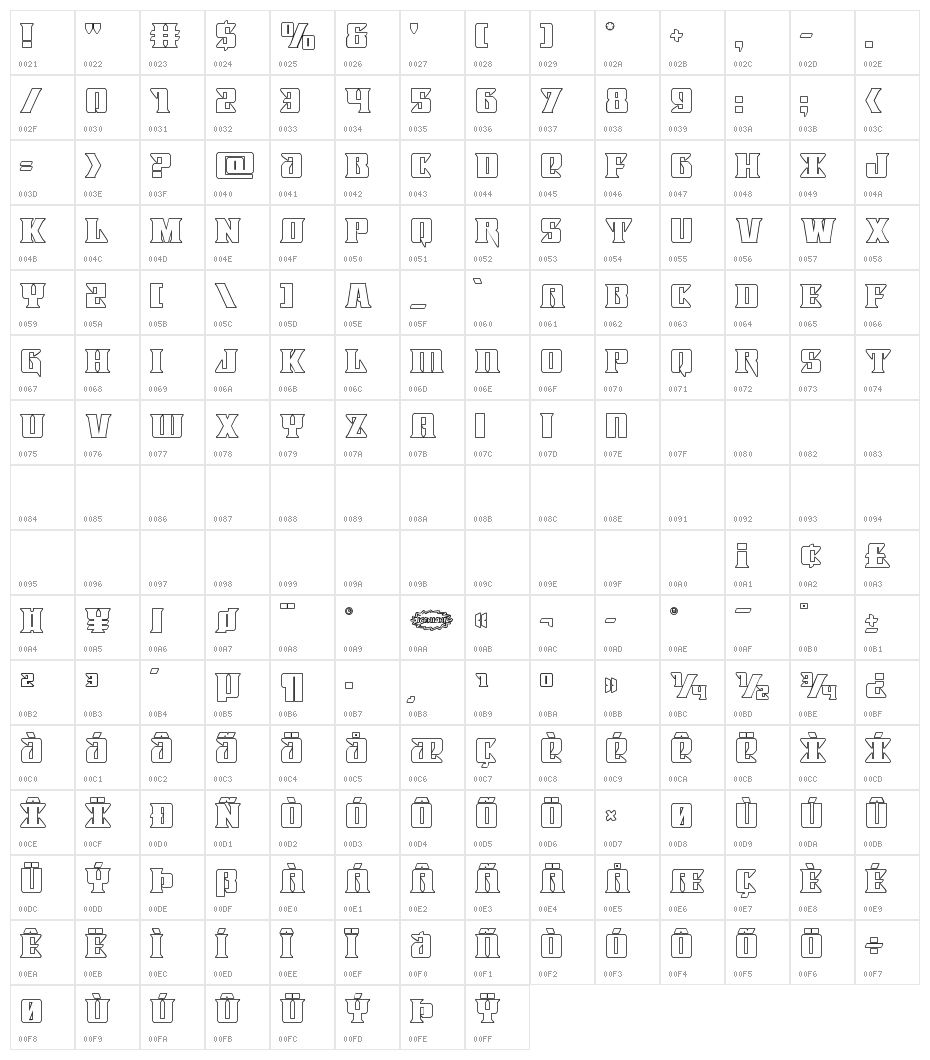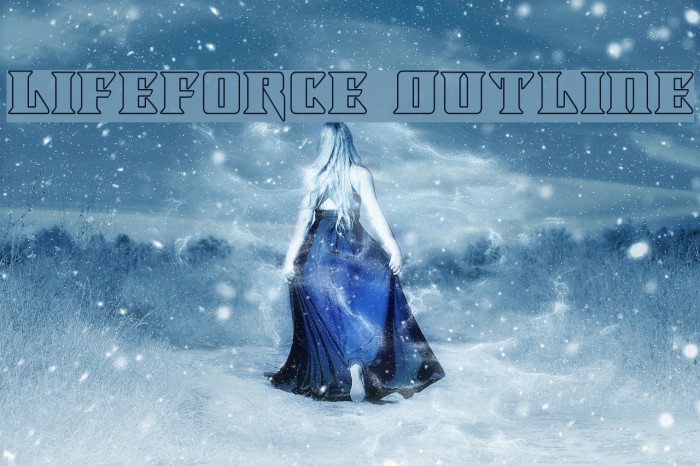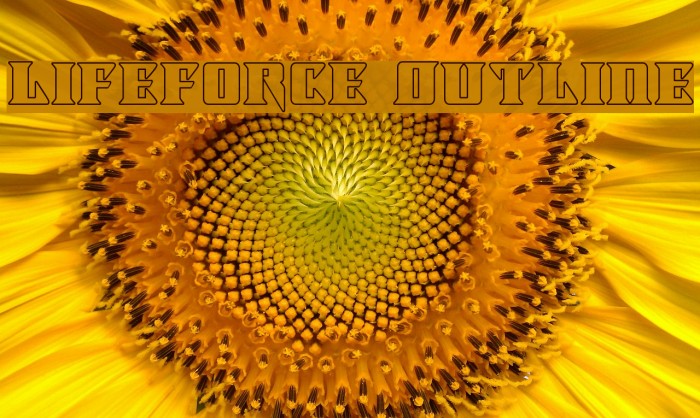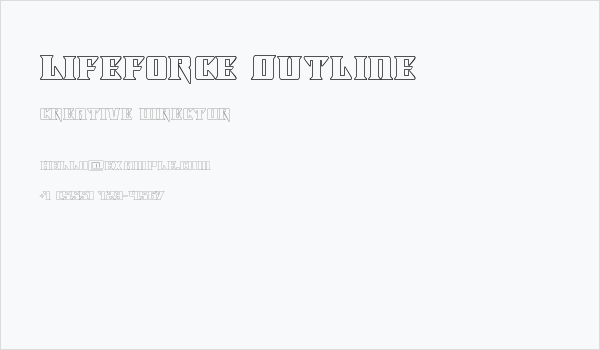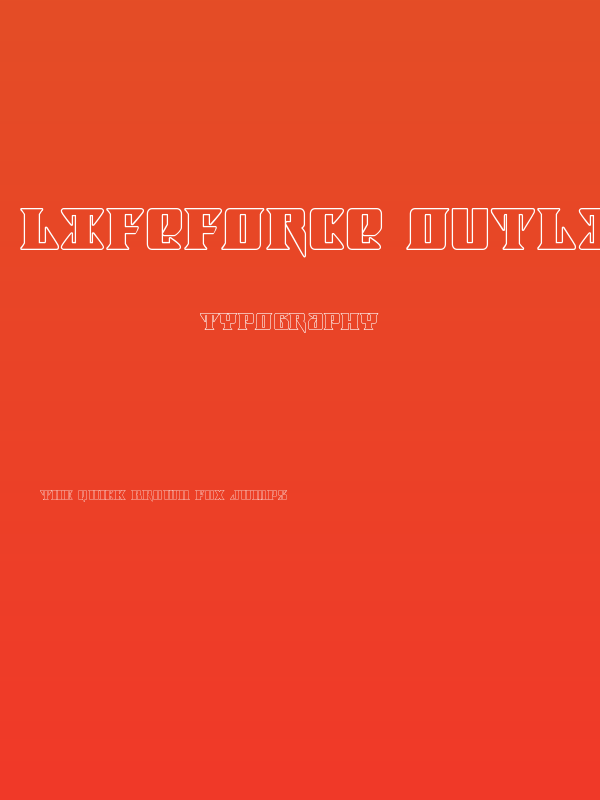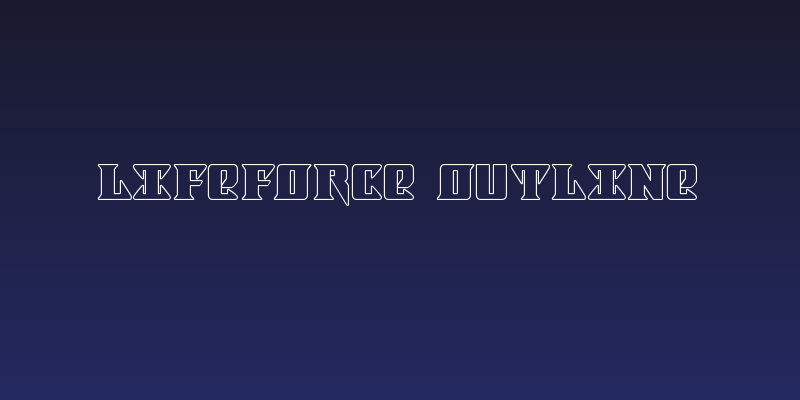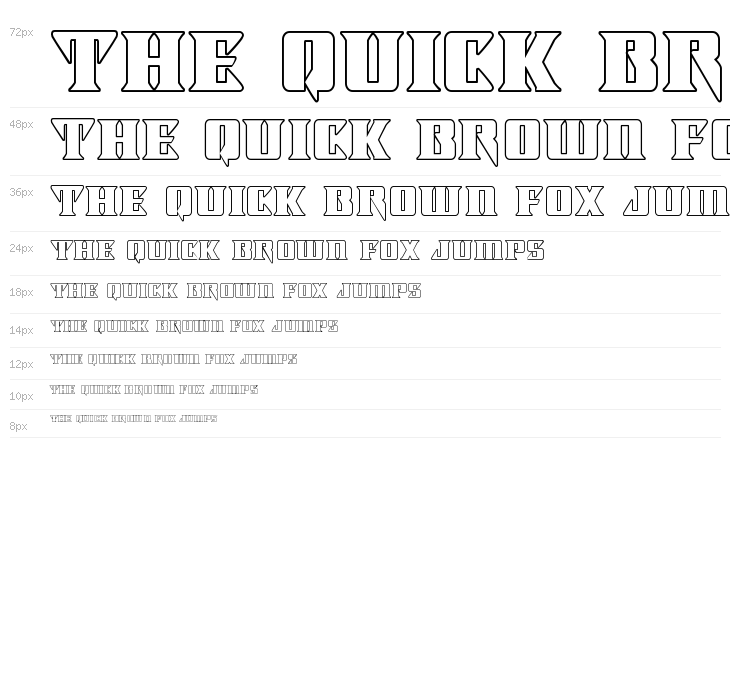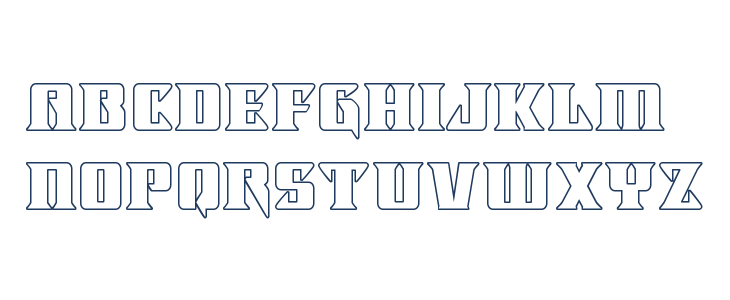
Lifeforce Outline Font
Lifeforce Outline Description
This font features a bold, geometric outline style with sharp angles and a futuristic aesthetic. Each character is designed with a consistent outline that gives it a three-dimensional appearance, making it stand out prominently. The uppercase and lowercase letters maintain a uniform height, contributing to a cohesive look. The numerals and special characters follow the same design principles, ensuring visual harmony across all elements. This font's unique style is both eye-catching and versatile, suitable for various creative applications.
| Overall Style | Futuristic, Modern |
| Proposed Projects | Ideal for sci-fi themed posters, video game titles, branding for tech companies, and any project requiring a modern, standout typeface. |